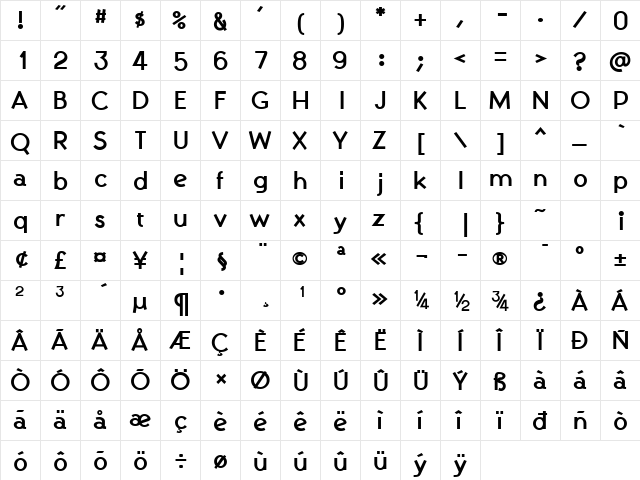
AndrewAndreasXBold Regular
Design Context for AndrewAndreasXBold Typeface
AndrewAndreasXBold offers clean, dependable letterforms without strong stylistic allegiance, making it a practical choice for designers who need flexibility. The heavy weight commands attention and anchors typographic hierarchies.